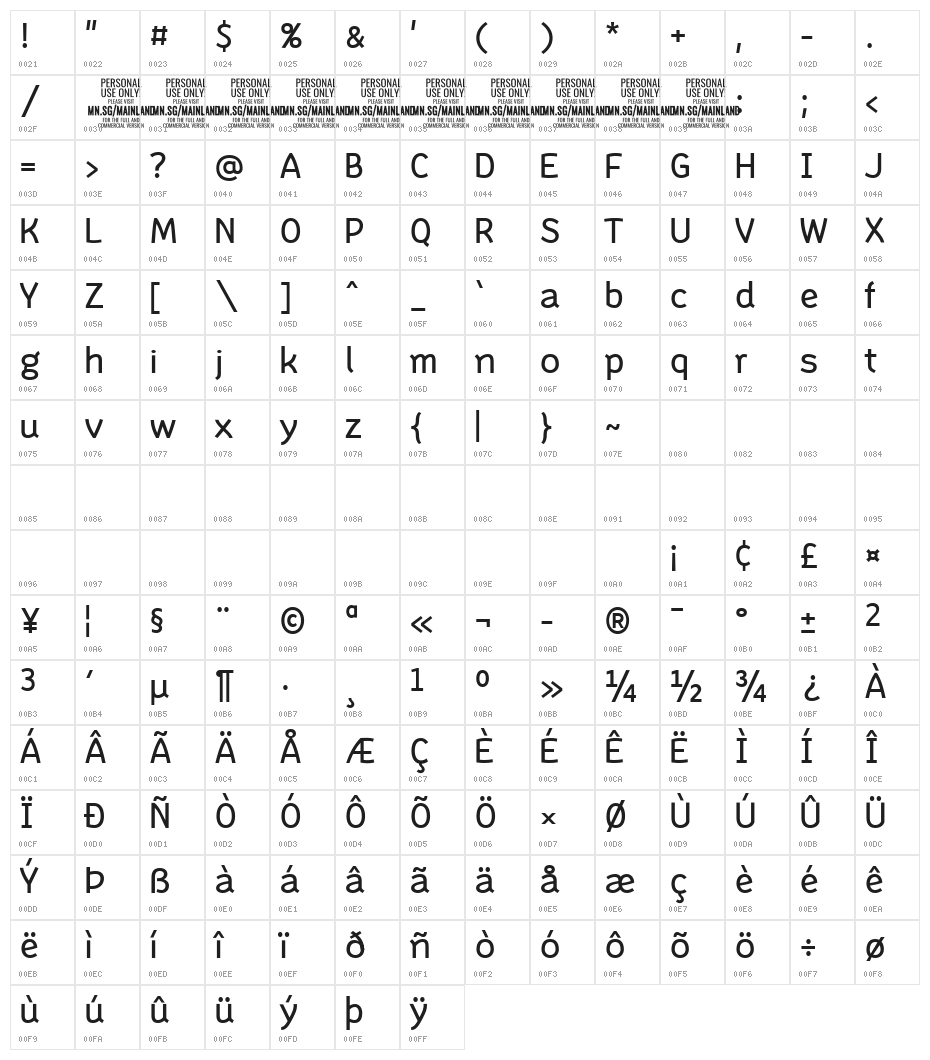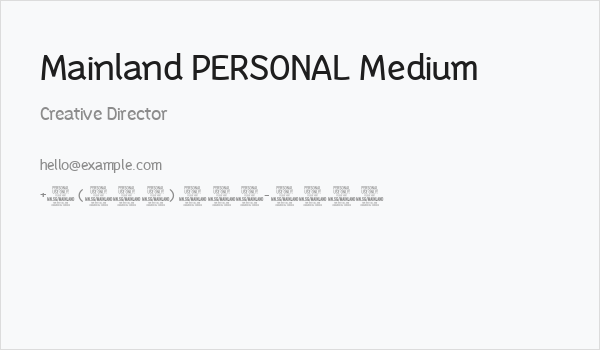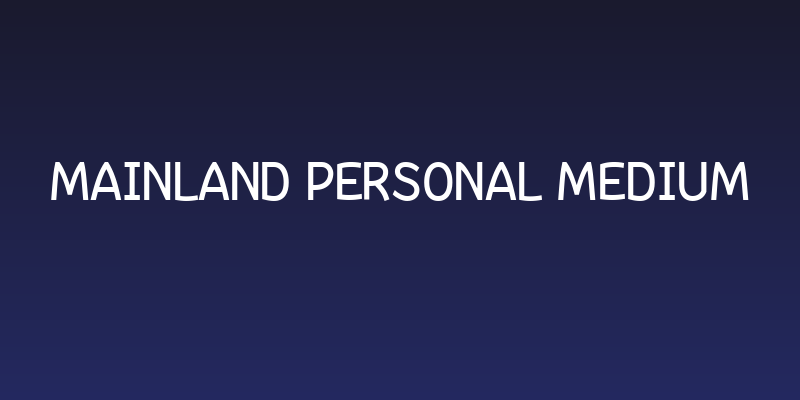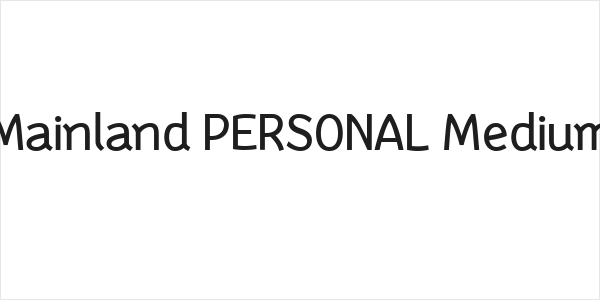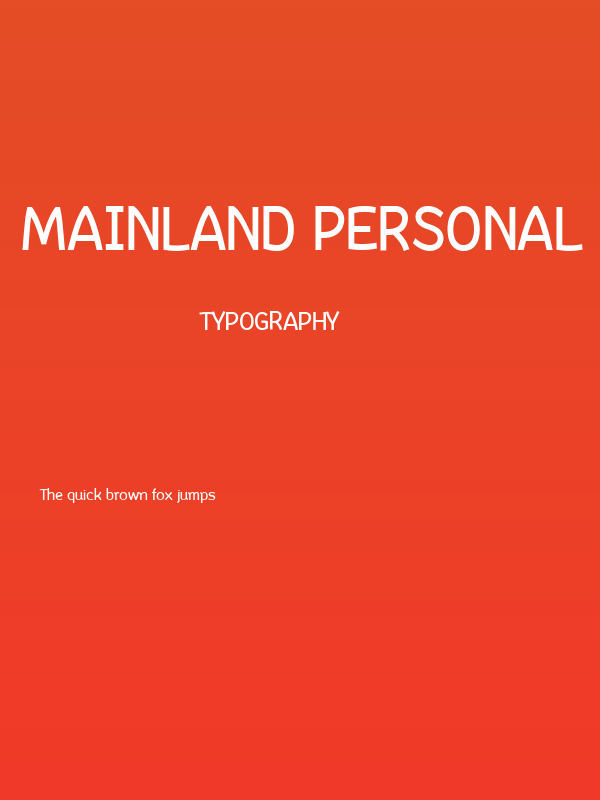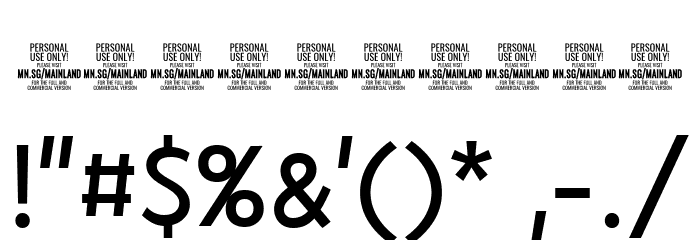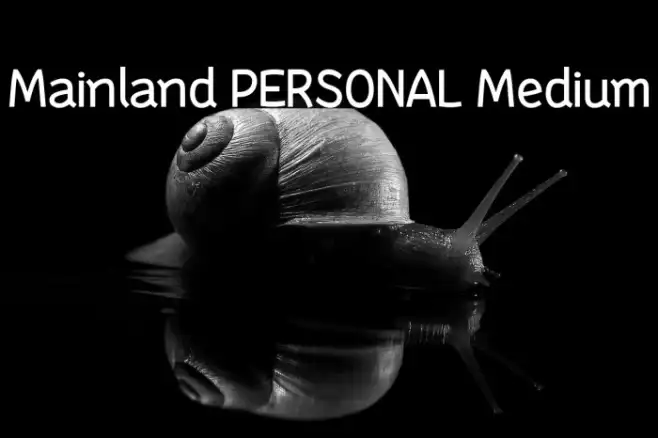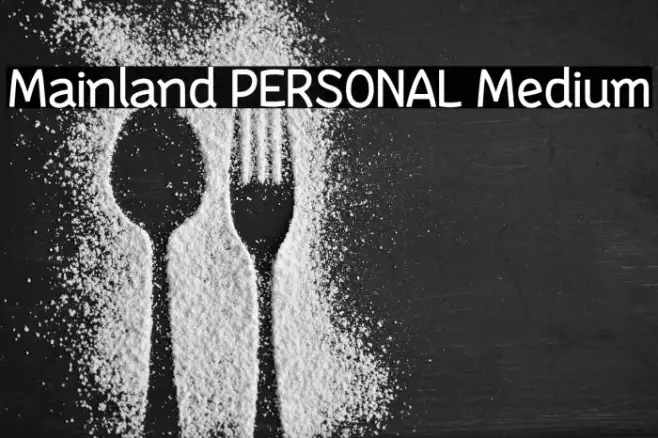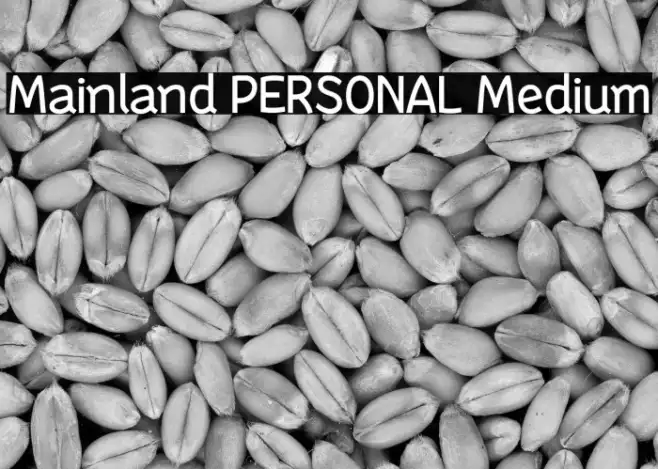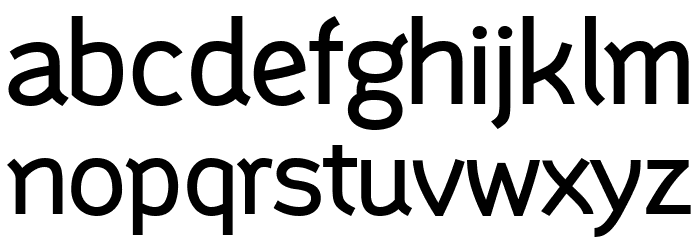
Mainland PERSONAL Medium Font
Mainland PERSONAL Medium Description
This font features a clean and modern sans-serif design with a geometric structure. The characters are well-balanced, offering a uniform appearance that enhances readability. The uppercase letters are bold and assertive, while the lowercase letters maintain a friendly and approachable look. The numerals are clear and distinct, making them suitable for various applications. Special characters are included, providing versatility for different uses. The overall style is contemporary, making it ideal for digital and print media.